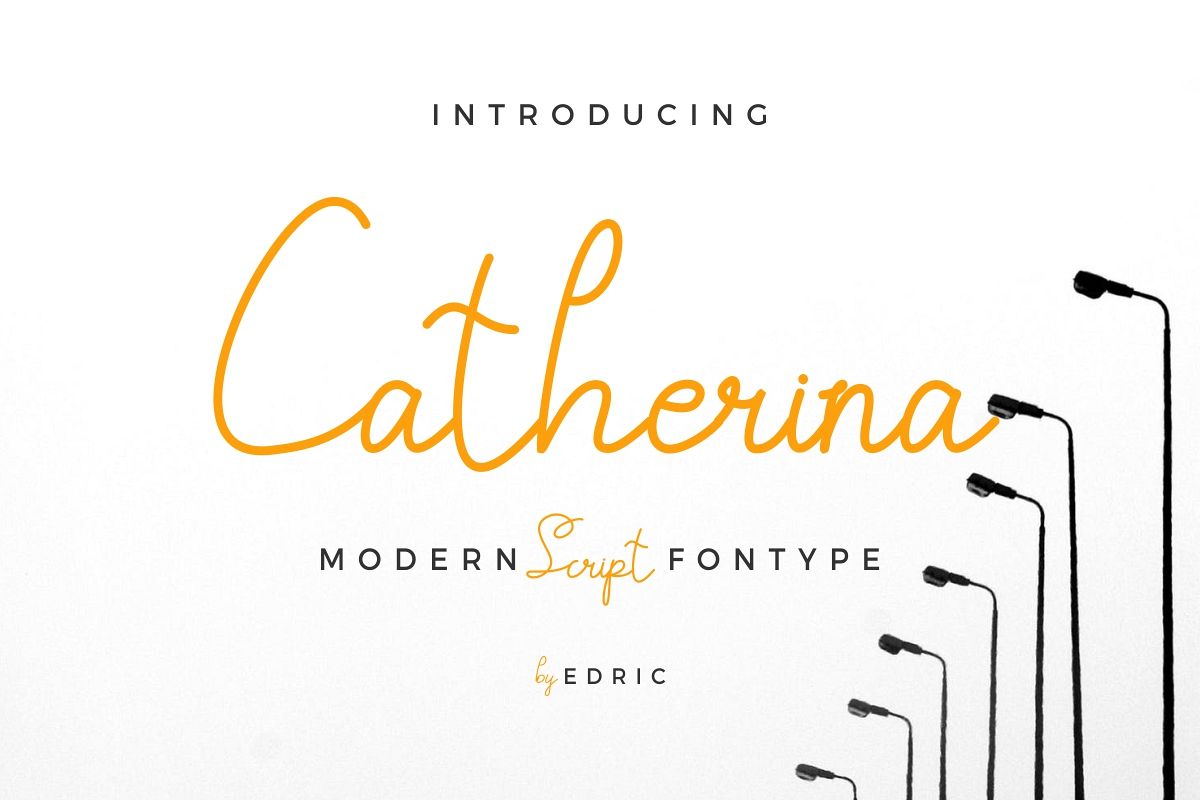
Catherina
Whatsup Everyone! Introducing our newest font : Catherina ! This is a new script handwriting feminine style font. It has a fresh, elegant and stylish glyph. You will get : - OTF - TTF - WoffTwo Styles : Regular and Bold. Also Support many international languagesThis font will Work on PC & Mac with Simple installations. Accessible in the Adobe Illustrator, Adobe Photoshop, Adobe InDesign, even work on Microsoft Word. It’s also PUA Encoded Characters – Fully accessible without additional design software.Purchase with confidence! =)